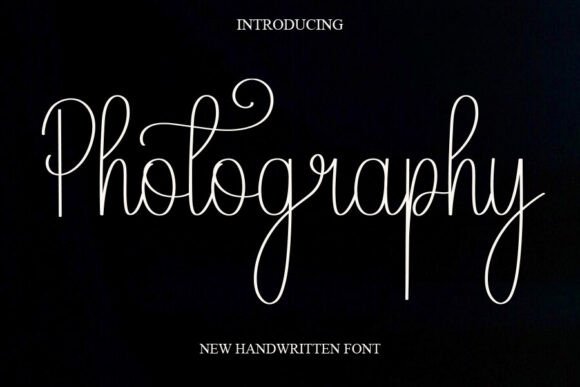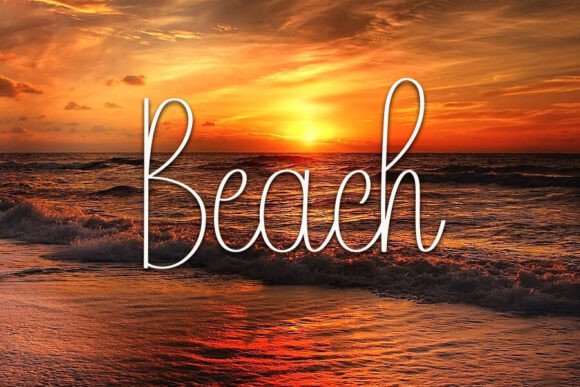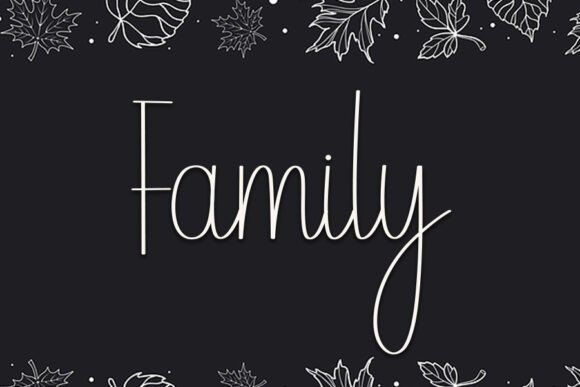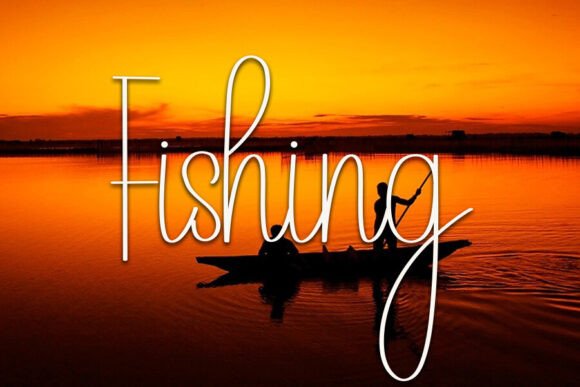
Photography Font
About the Photography Font
The wait is over! The incredible Photography Font is now available for your design toolkit. Photography is a simple script font. Fall for its ravishing style and use it to create gorgeous wedding invitations, beautiful stationary art, eye-catching social media posts, and much more!
Photography’s elegant yet casual script lends itself well to projects requiring a touch of refined playfulness. Ideal applications include wedding stationery, branding for boutiques or artisan businesses, and short-form social media content where its readability is maximized. However, its decorative nature makes it unsuitable for body text or UI elements; legibility suffers in long passages.
Pairing Photography with a clean sans-serif like Lato or a geometric sans-serif like Futura creates a balanced contrast, grounding the script’s flourish. For a more traditional feel, a serif like Garamond or a modern serif like Playfair Display provides a sophisticated pairing. Avoid pairing it with other highly decorative scripts, as this can create visual clutter.
The font’s overall personality is best described as sophisticated yet approachable; a balance of elegance and casual charm. It’s a great choice for brands that wish to project a sense of stylish approachability and timeless quality.